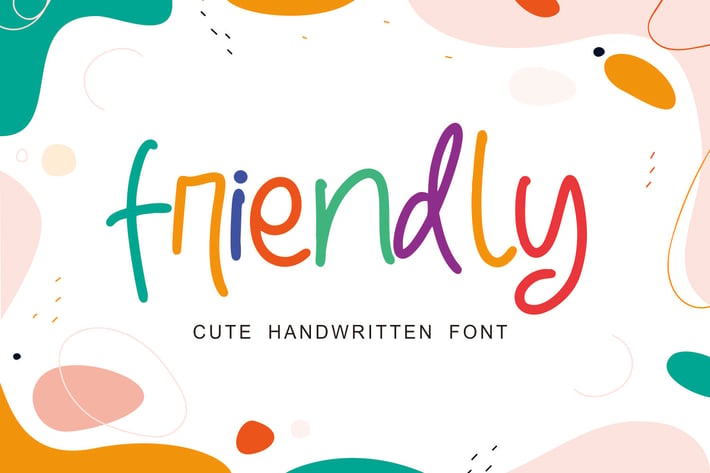
Friendly - Monoline Font
Friendly is a quirky font with a handwritten style that exudes elegance and flow. This charming font looks stunning on wedding invitations, thank you cards, quotes, greeting cards, logos, business cards, and any other design that needs a handwritten touch. Its unique character and style bring a personal and sophisticated feel to every project.
Friendly features a varying baseline, smooth lines, and gorgeous glyphs, offering a dynamic and visually appealing aesthetic. The font's stunning alternates allow for customization, making it perfect for creating unique and memorable designs. Whether you're working on professional branding or personal projects, Friendly adds a touch of elegance and charm.